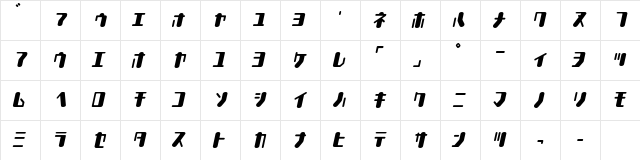
TYPEOUT2097KAT Italic
Design Context for TYPEOUT2097KAT Typeface
TYPEOUT2097KAT takes a measured approach to typography — its balanced proportions and neutral character make it a reliable workhorse for both digital and print work. Its italic angle brings a sense of urgency and motion to the letterforms.
Pro Tip: Use TYPEOUT2097KAT for emphasis, pull quotes, and subheadings where its slanted energy can add rhythm to the layout.